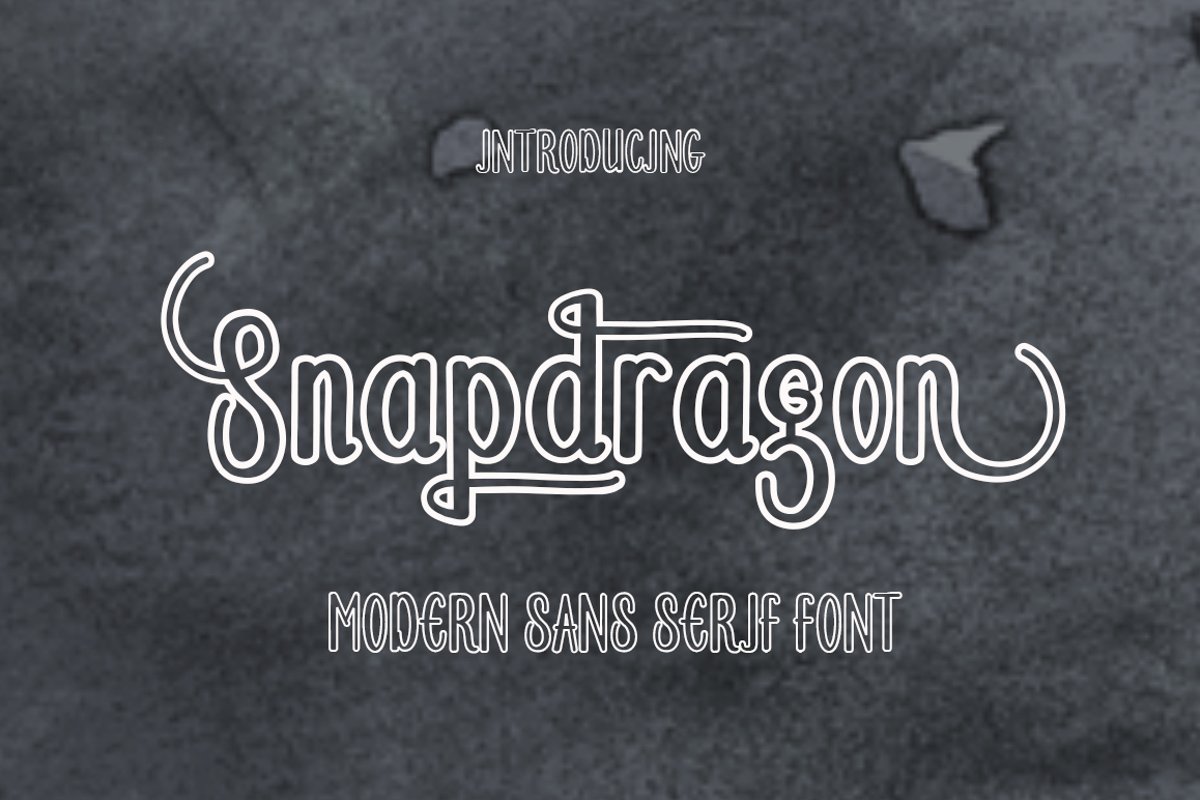
Created By JoeCreative
Snapdragon
Snapdragon Sans Serif Font Duo is new sans serif font has a sleek typeface, font is very simple and easy to manipulate: logo, slogan and made in advertising messages.
Can be used for various purposes.such as headings, logos, wedding invitation, t-shirt, letterhead, signage, lable, news, posters, badges etc. To enable the OpenType Stylistic alternates, you need a program that supports OpenType features such as Adobe Illustrator CS, Adobe Indesign & CorelDraw X6-X7.
The Features of this fonts is;
* Stylistic Alternates
* Contextual Alternates